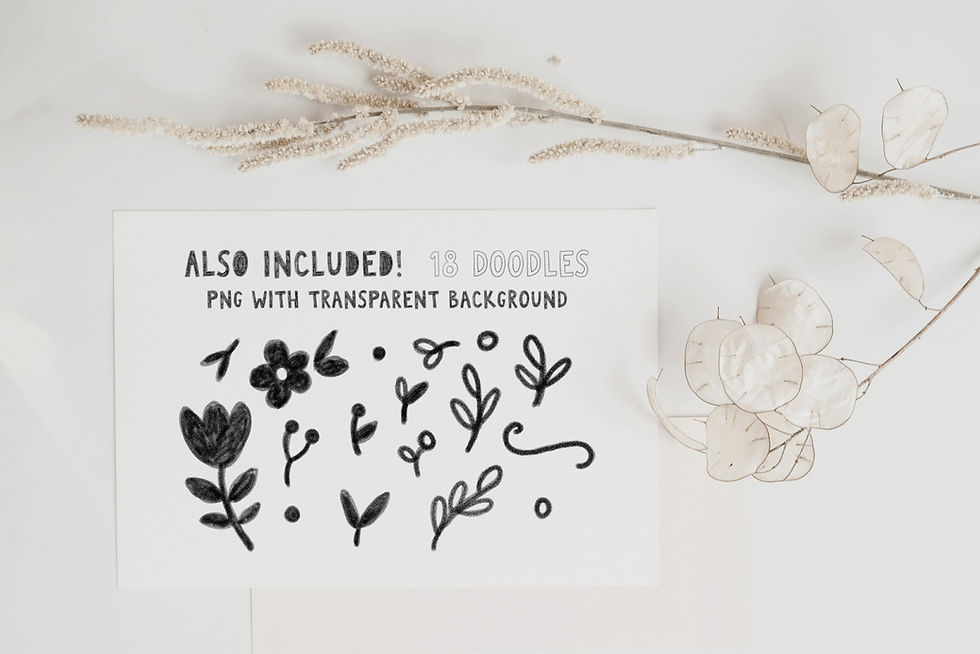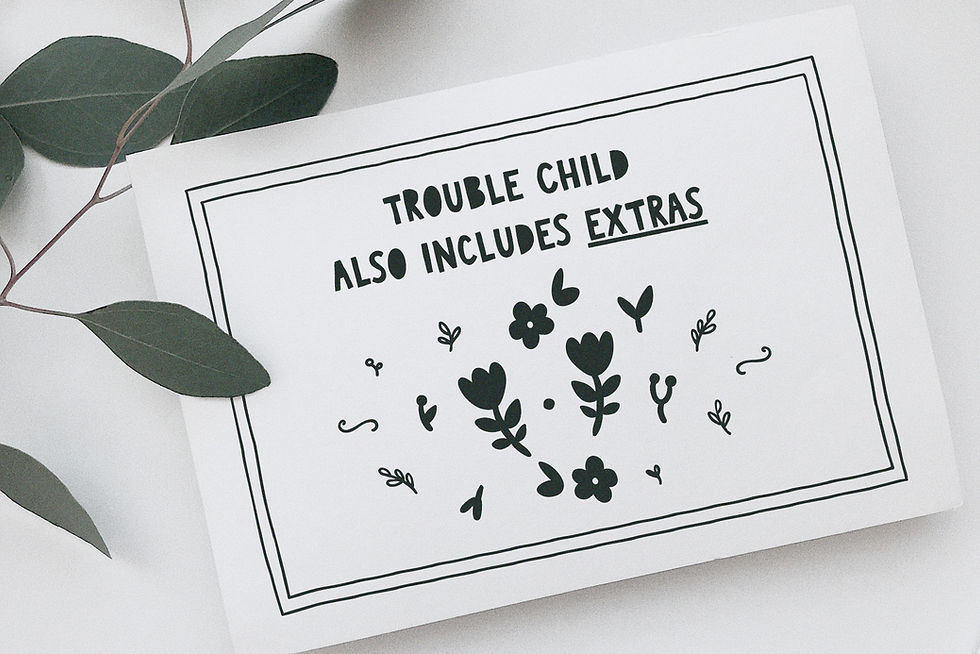
Trouble Child is a playful all caps display font with lots of variations and a set of extras. Use Trouble Child in any design that needs a bold font, such as logotypes, quotes and social media posts, website and magazine layouts, and poster designs.
Trouble Child font
4 variations: outline, blackout, underline and outblack versions of the font
Trouble Child Extras font, with doodles, shapes and border elements (seen in the previews) and a corresponding PDF guide
Trouble Child SVG display font